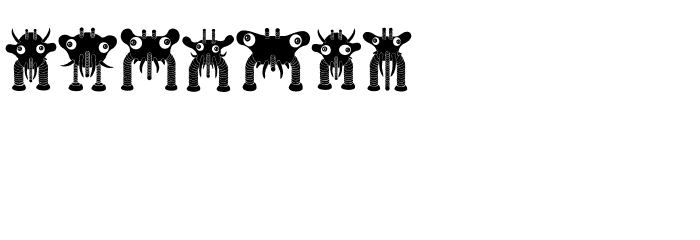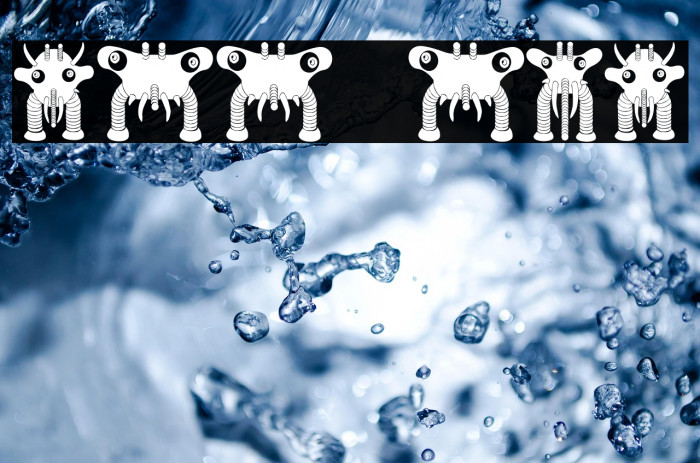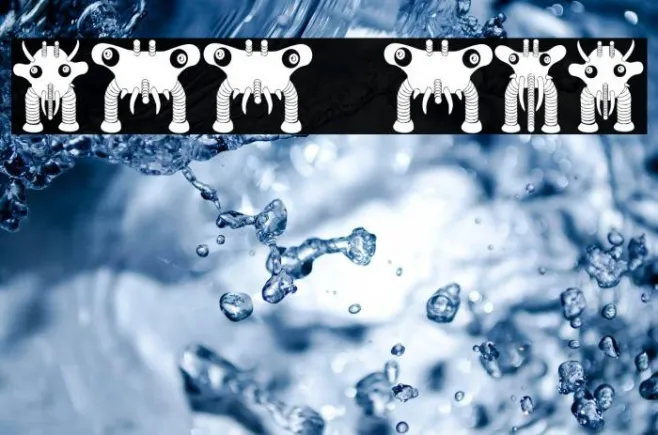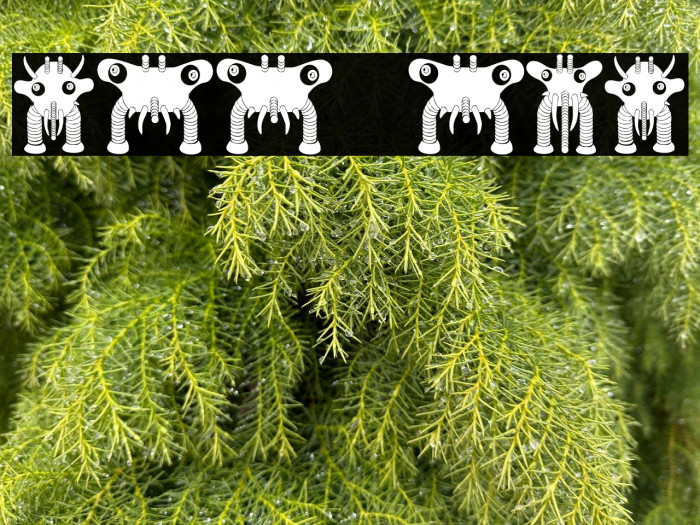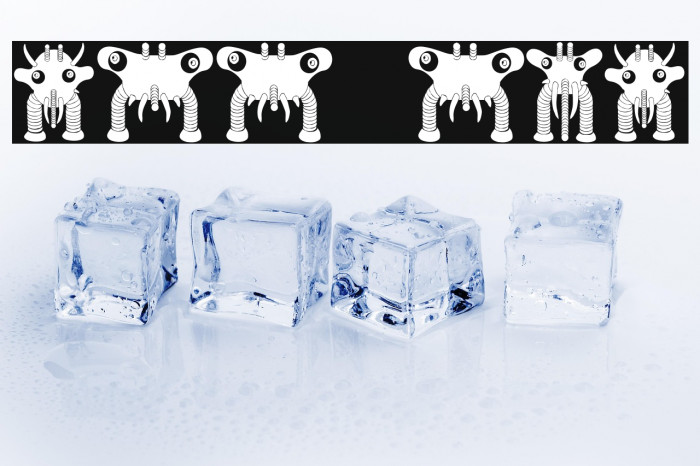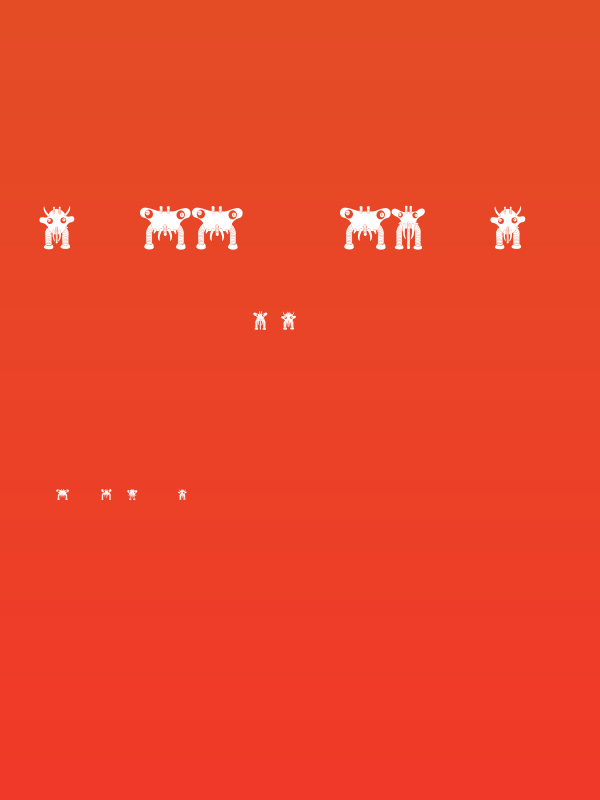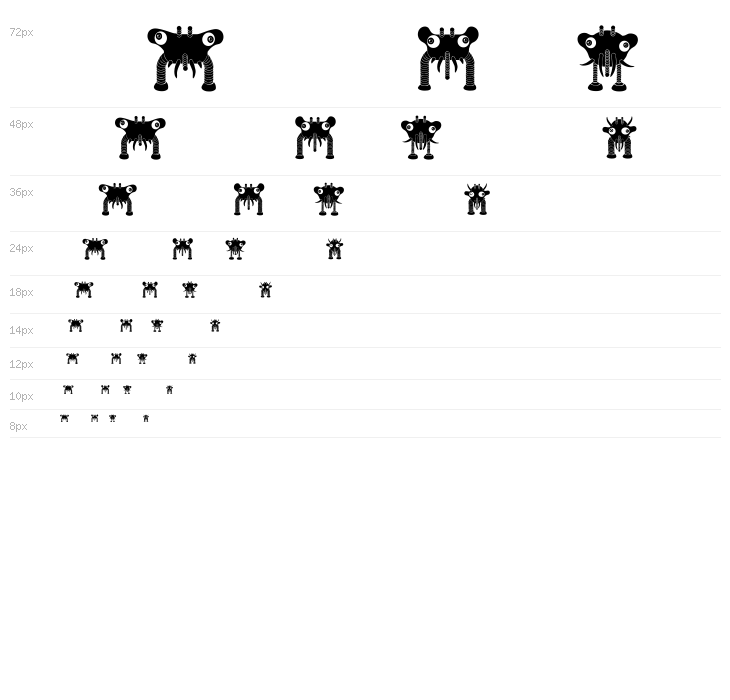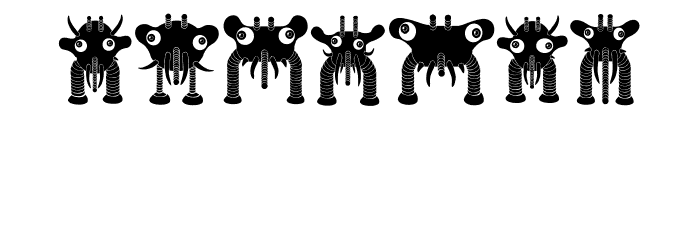
Alleen Regular Font
Alleen Regular Description
This font features a highly decorative and whimsical design, with each character resembling a playful creature or alien-like figure. The characters are bold and intricate, with unique shapes and patterns that give them a lively and animated appearance. The font's style is highly imaginative, making it stand out with its artistic and unconventional look. Each letter is distinct, with exaggerated features and a sense of movement, creating a dynamic and engaging visual experience.
| Use Case | Logos, Posters, Creative Titles |
| Proposed Projects | Ideal for children's books, fantasy-themed projects, creative posters, and playful branding. |